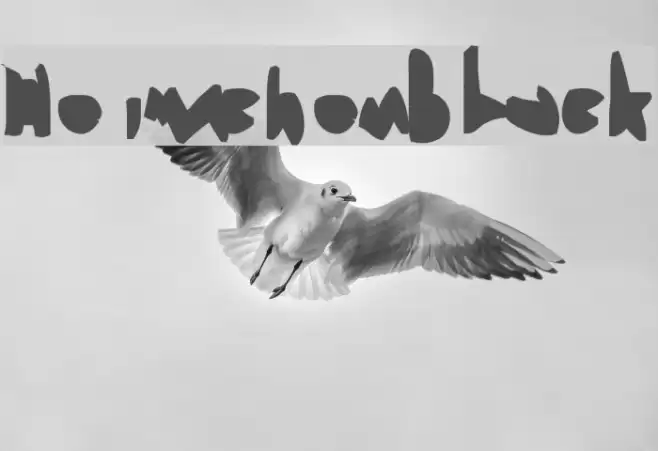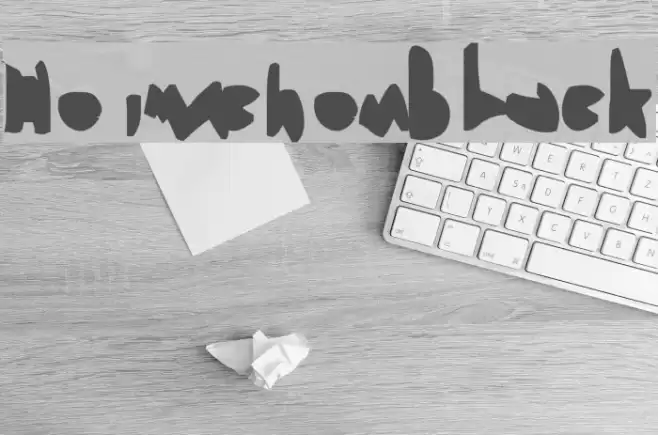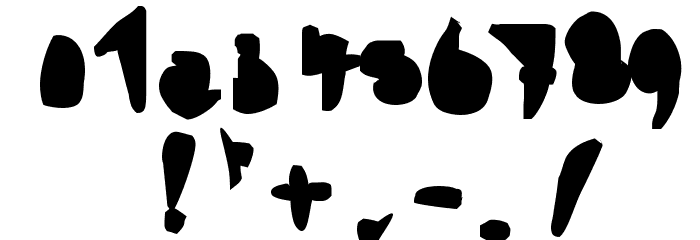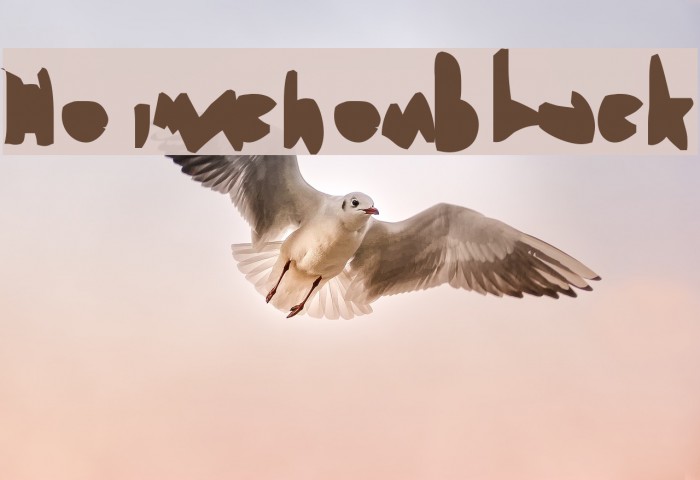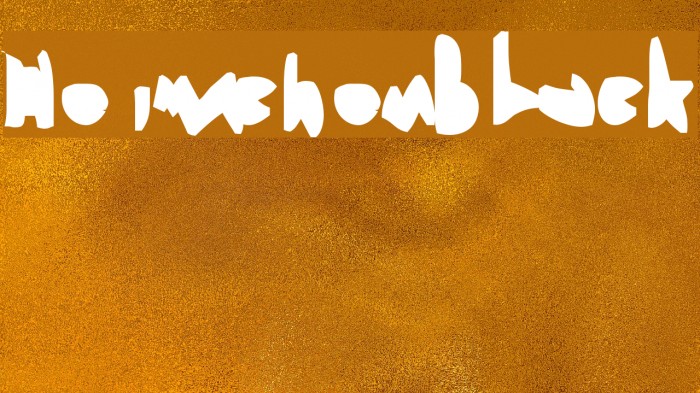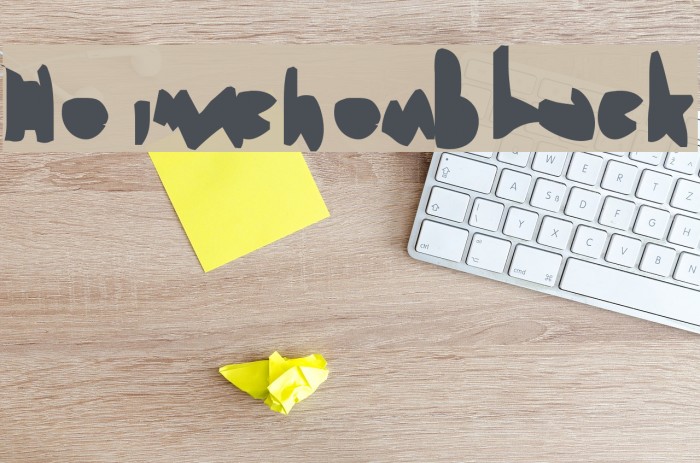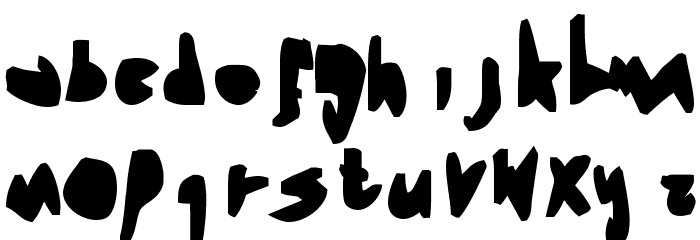
Heimchen Black Font
Heimchen Black Description
This font features a bold and abstract design, characterized by its thick, irregular strokes and unique, jagged shapes. The letters are heavily stylized, with an almost graffiti-like appearance that conveys a sense of energy and movement. The uppercase and lowercase letters share a consistent visual style, creating a cohesive look across the alphabet. Numbers and special characters are equally bold and expressive, maintaining the font's distinctive aesthetic. This font's unconventional style makes it stand out, offering a creative and artistic flair.
A bold, abstract font with thick, irregular strokes and a graffiti-like style from Uncategorized fonts.
- Proposed Projects: Ideal for artistic projects, album covers, street art-inspired designs, and bold branding.
- Overall Style: Modern, Artistic
- Use Case: Logos, Posters, Creative Headlines